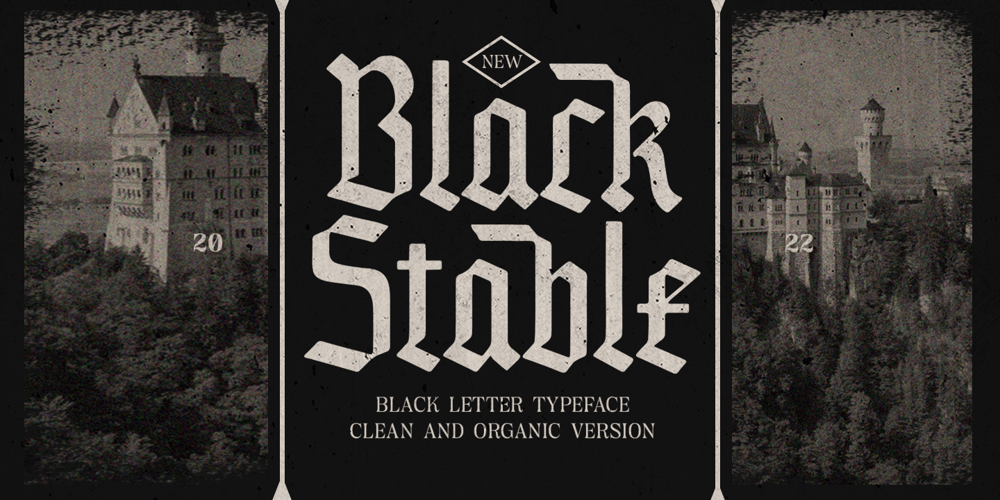
Black Stable Font Family was designed by Hendry Juanda and published by Letterhend. Black Stable contains 2 styles and family package options. Introducing, Black Stable – A modern blackletter typeface. This type of font perfectly made to be applied especially in logo, and the other various formal forms such as Logo, Clothing, Fashion, Headline, or any type of advertising purpose.Features : uppercase & lowercase numbers and punctuation stylistic alternate multilingual PUA encoded We highly recommend using a program that supports OpenType features and Glyphs panels like many of Adobe apps and Corel Draw, so you can see and access all Glyph variations.